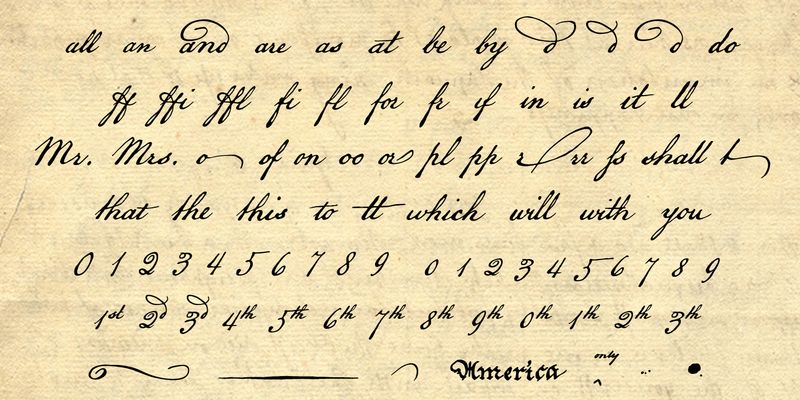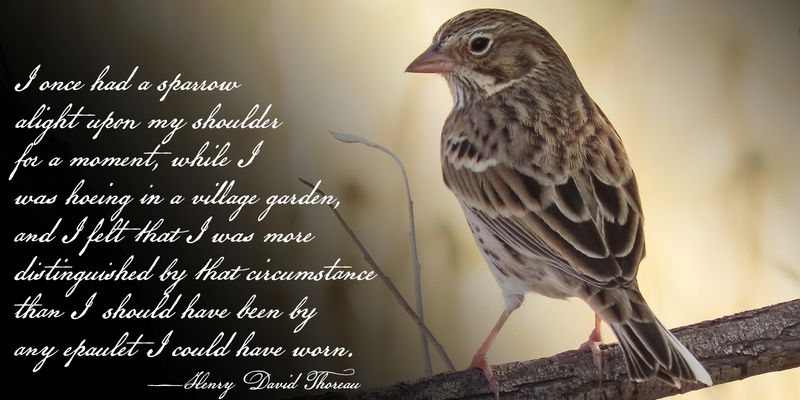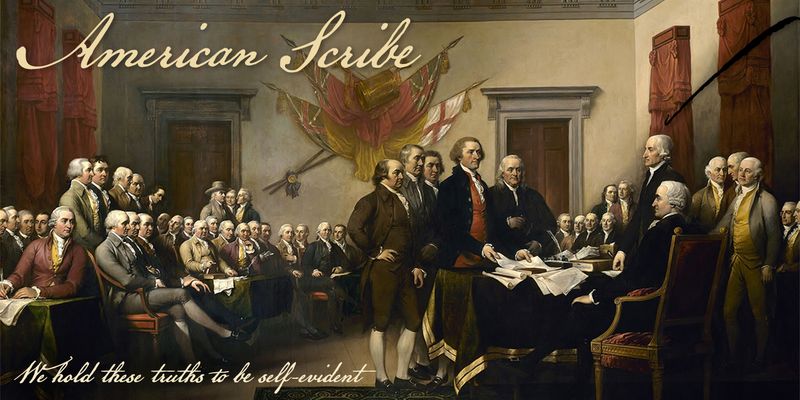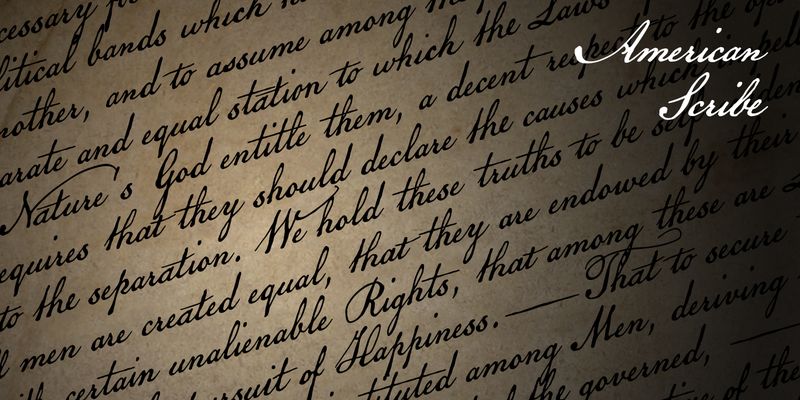
American Scribe™ replicates the penmanship of Timothy Matlack (1736–1826) who engrossed the famous Declaration of Independence. The font has scores of OpenType features and full Latin support.